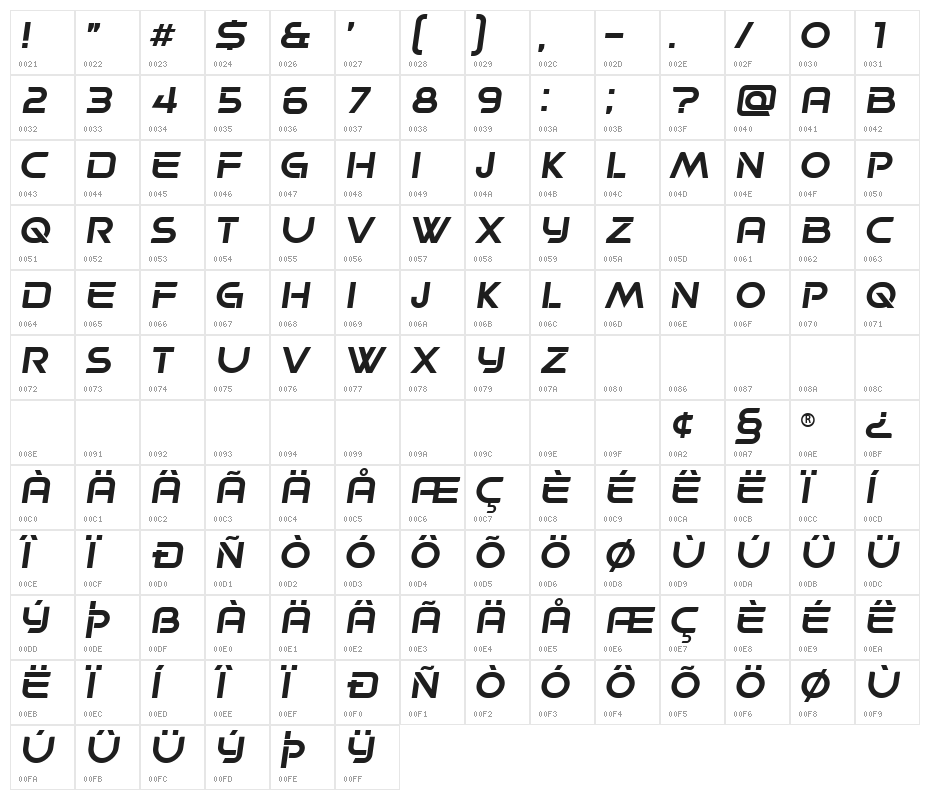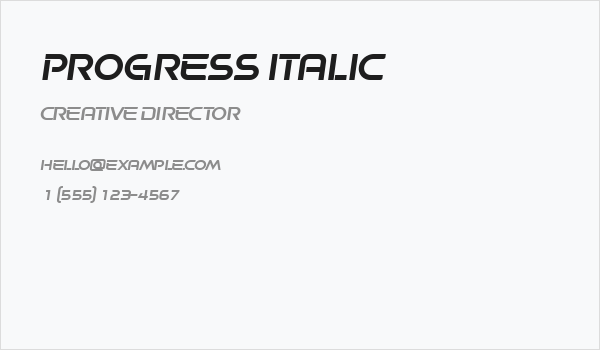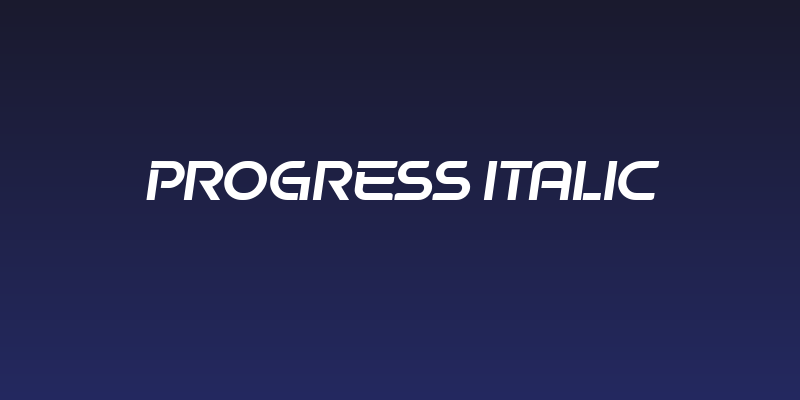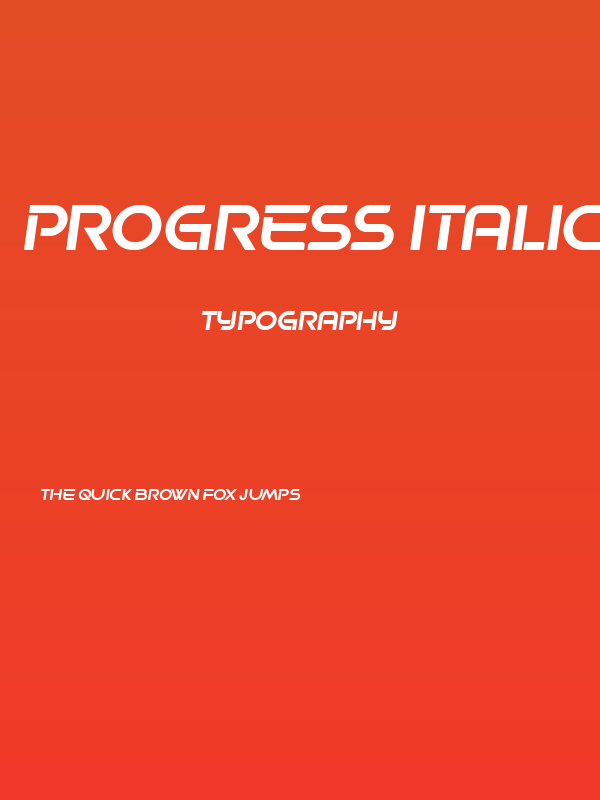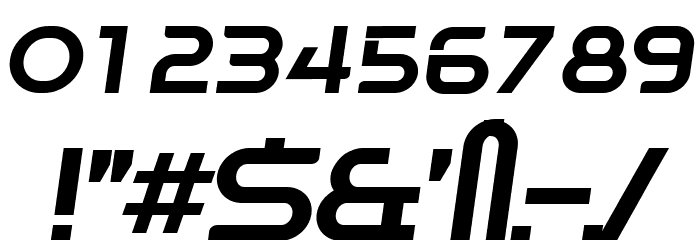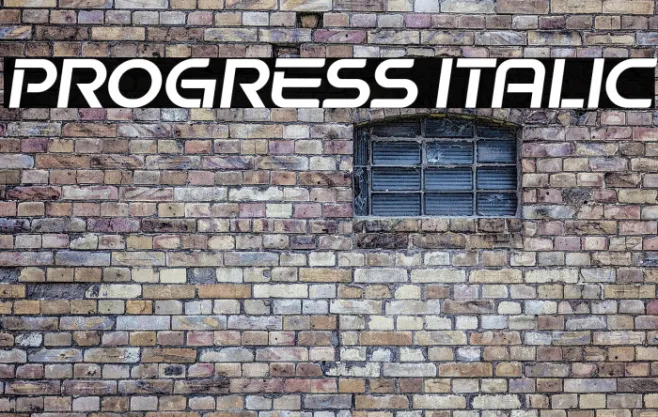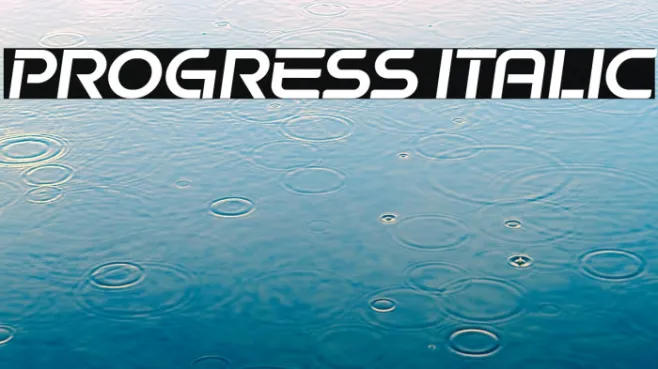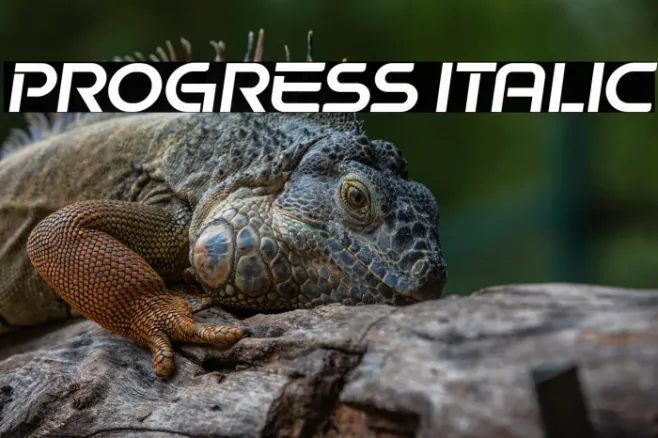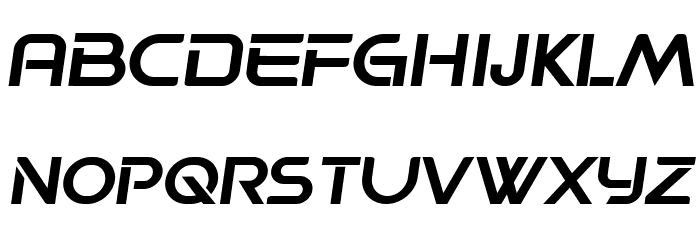
Progress Italic Font
Progress Italic Description
This font features a sleek, modern design with a forward-leaning italic style that conveys a sense of motion and speed. The characters are bold and slightly condensed, giving them a compact appearance while maintaining readability. The strokes are consistent in width, providing a uniform look across all characters. The angular cuts and sharp edges add a futuristic touch, making it suitable for dynamic and contemporary designs. The numbers and special characters follow the same stylistic approach, ensuring cohesion throughout the typeface.
| Use Case | Logos, Headlines |
| Proposed Projects | Ideal for branding, sports team logos, automotive designs, and technology-related projects. |